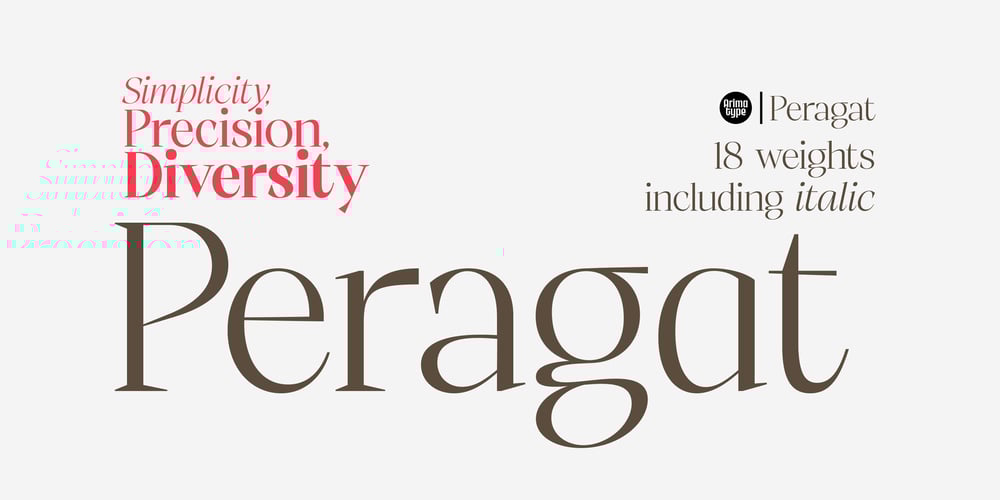
Peragat
Peragat font
Peragat Font Family was designed by Amri Mauludin and published by ArimaType. Peragat contains 18 styles and family package options. Peragat is the perfect embodiment of the harmony between classical elegance and a modern touch. Designed to meet the diverse needs of design, this serif font offers a combination of sophistication and contemporary flair, creating a captivating and professional atmosphere.Key Features: Classic Beauty: With a set of gentle serifs and balanced proportions, Peragat creates classical beauty that enriches your designs with an elegant touch. Optimal Readability: Each letter is meticulously crafted to ensure optimal readability, even at small sizes, making it the perfect choice for various graphic design and print projects. Global Flexibility: Peragat is designed with diversity and inclusivity in mind. With full support for multiple languages worldwide, this font seamlessly integrates into international projects. Design Applications: This font is suitable for various design purposes, including but not limited to: Brand identity design Marketing and promotional materials Print and digital publications Web design Business presentations